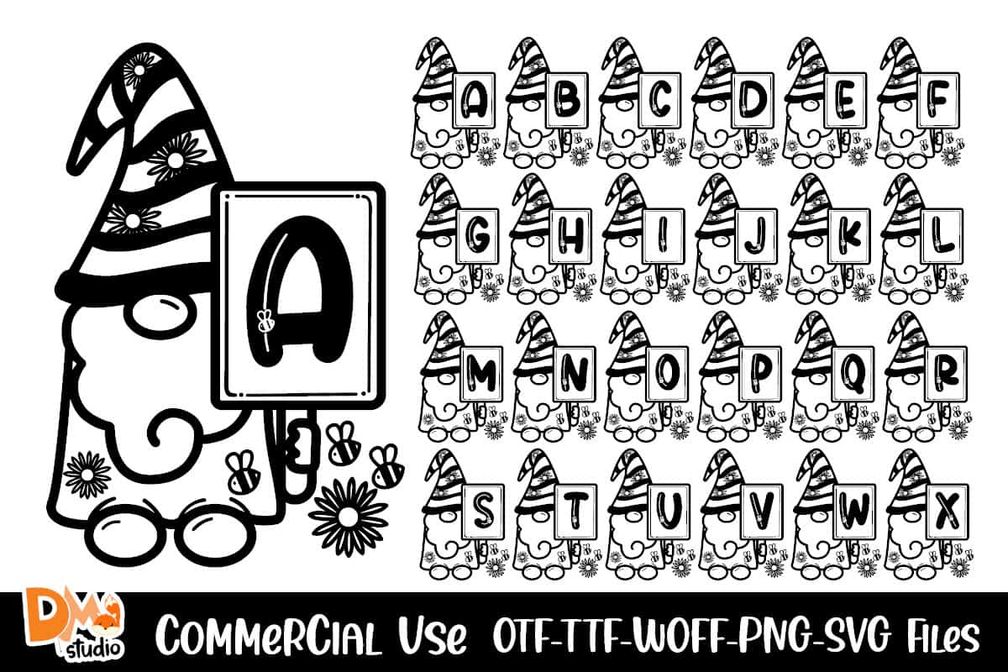
Monogram Spring Gnome Font
Monogram Spring Gnome Font Preview
Monogram Spring Gnome Font is a whimsical and enchanting typeface inspired by the charm of spring and the delightful world of gnomes. This font is designed for creating monograms that are not only personalized but also carry the joy and magic of the season. With a combination of playful gnome illustrations and elegant letterforms, this font set is perfect for a variety of creative projects such as monogram designs, invitations, crafts, and more.
1. Spring Gnome Illustrations: Alongside the font, this package includes charming gnome illustrations inspired by the spirit of spring. These illustrations add a delightful touch to your monograms and can be used to enhance your overall design.
2. Monogram Crafting: The font is crafted specifically for creating monograms with a unique and personalized feel. The letters are designed to seamlessly combine, allowing you to effortlessly create beautiful monogram compositions.
2. Monogram Creation: Use the font to create charming and personalized monograms. Experiment with different combinations of letters to achieve the desired look.
Create delightful and personalized designs that capture the spirit of spring with the Monogram Spring Gnome Font. Whether you’re crafting monograms, designing invitations, or adding a touch of magic to your projects, this font set provides the tools you need to bring your creative visions to life.